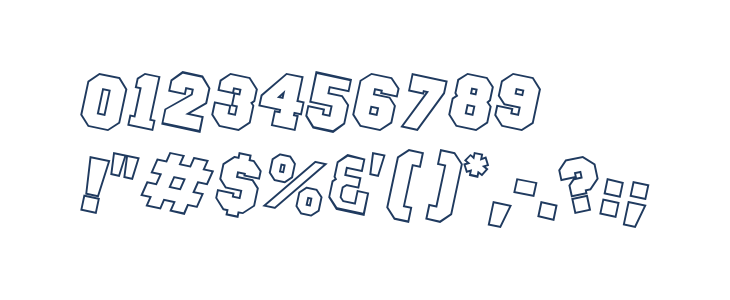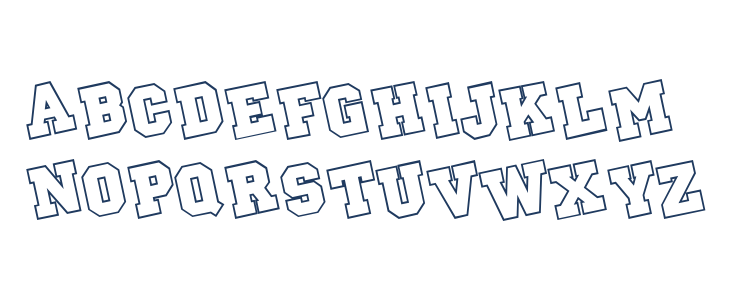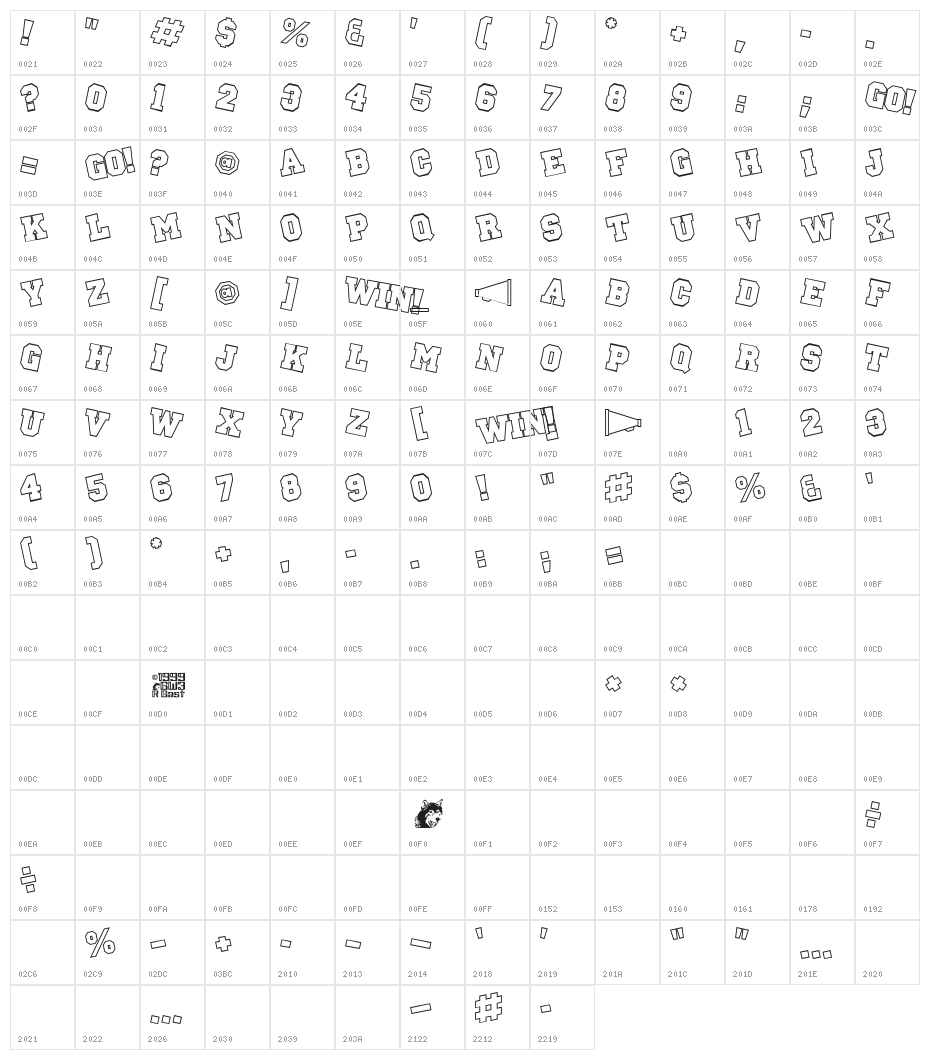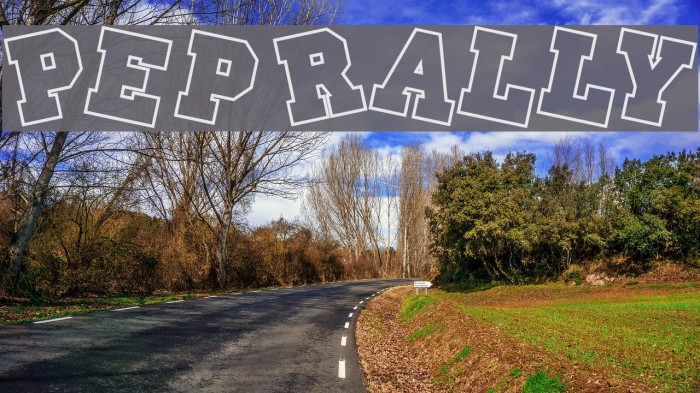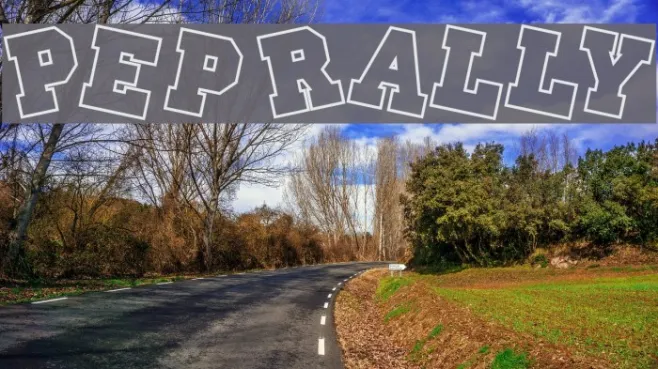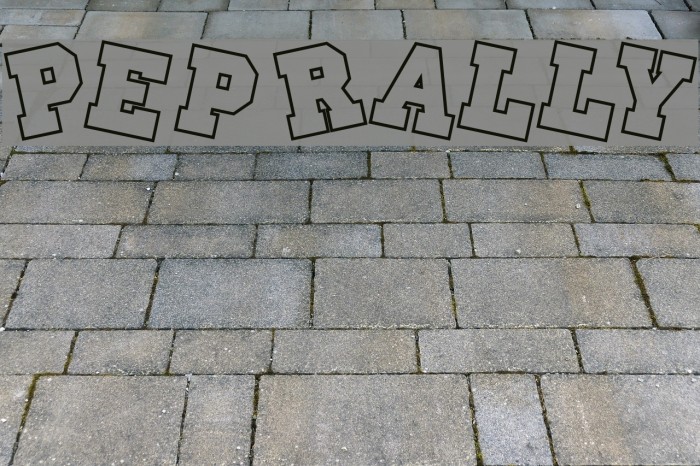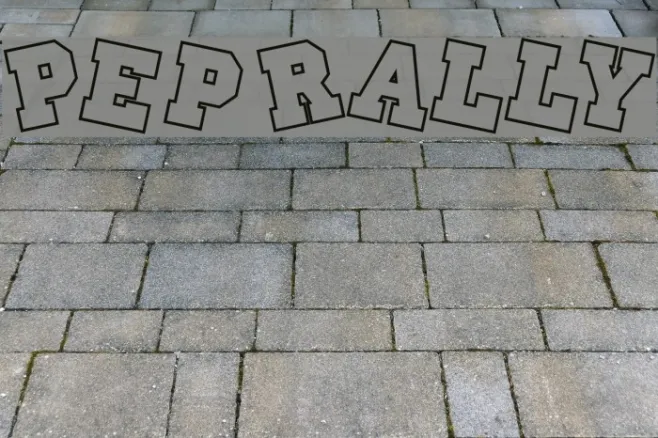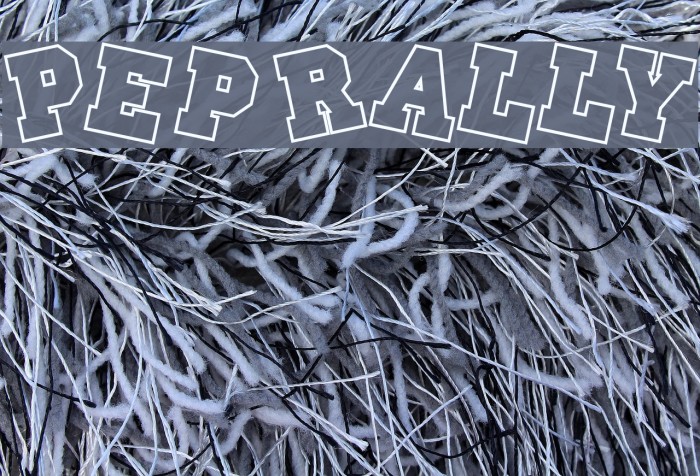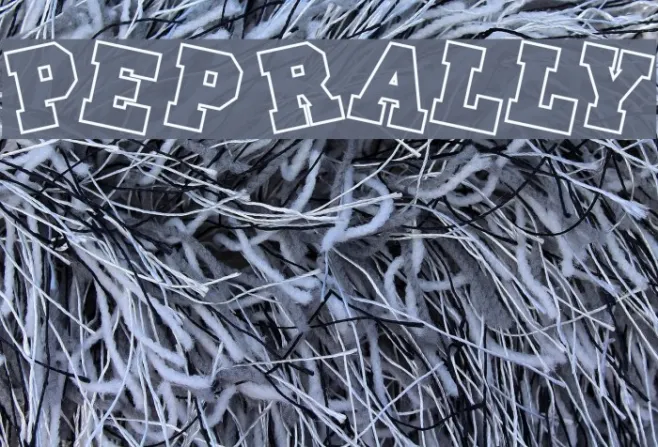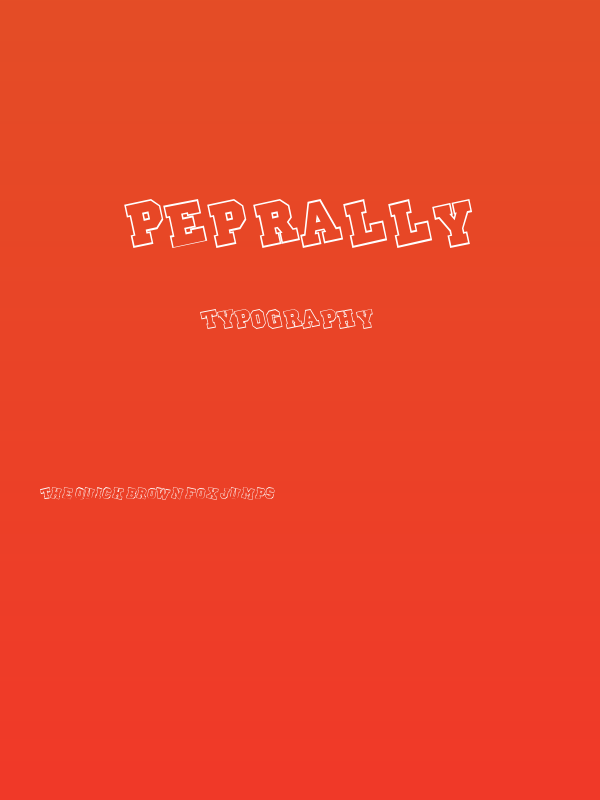
Pep Rally Font
Pep Rally Description
This font features bold, blocky letters with a distinct outline, giving it a strong and impactful appearance. The characters are uppercase and have a uniform thickness, which contributes to their boldness. The style is reminiscent of collegiate or sports-themed designs, often used to convey energy and enthusiasm. Each letter is well-defined, with sharp angles and a slight slant that adds a dynamic feel. The numbers and special characters follow the same design principles, ensuring consistency across all glyphs. This font is ideal for creating attention-grabbing headlines or titles that need to stand out.
| Overall Style | Energetic, Collegiate, Bold |
| Proposed Projects | Ideal for sports team branding, event posters, school spirit merchandise, and dynamic headlines. |